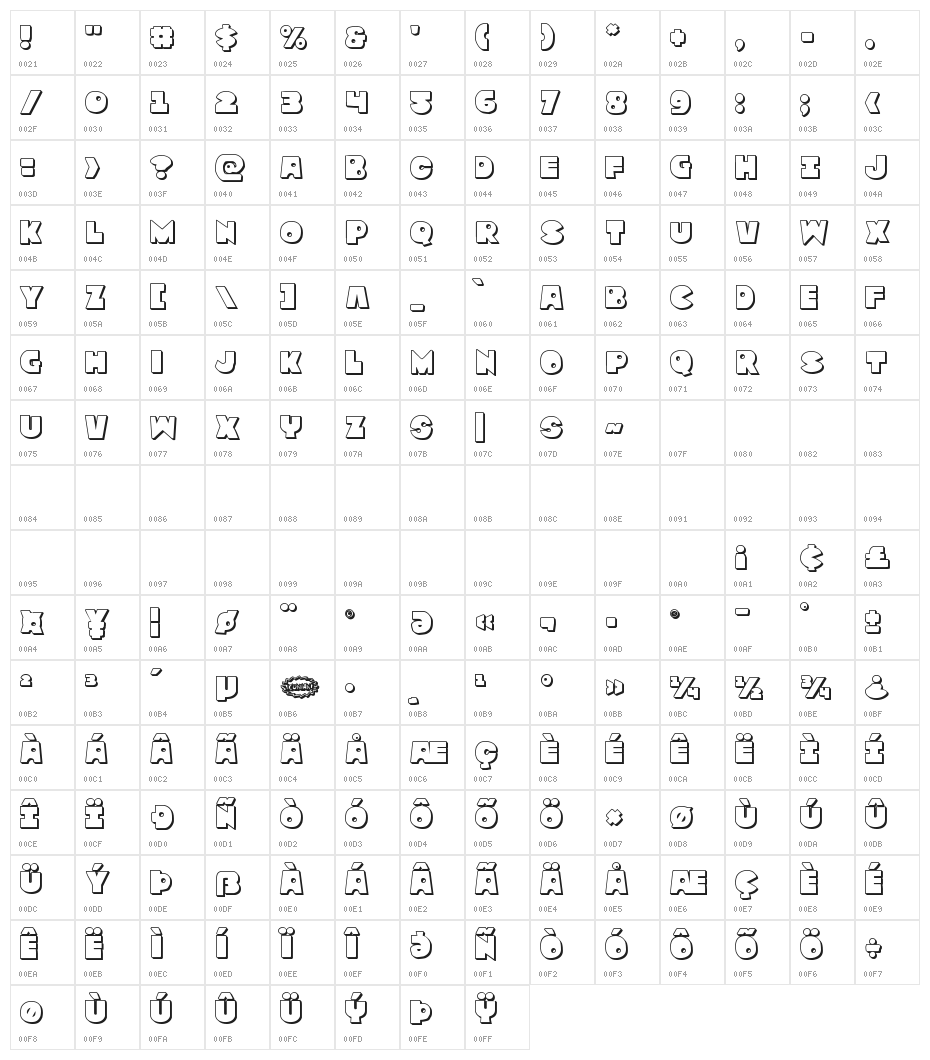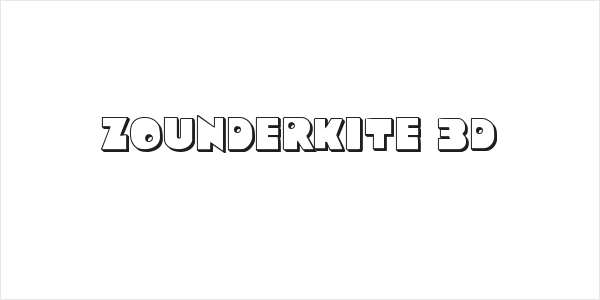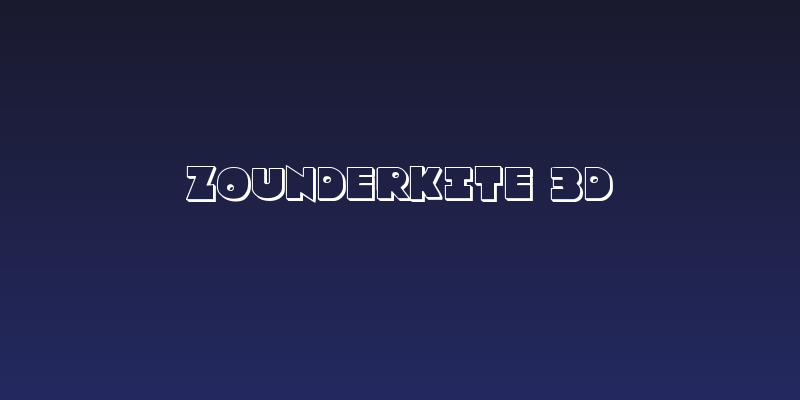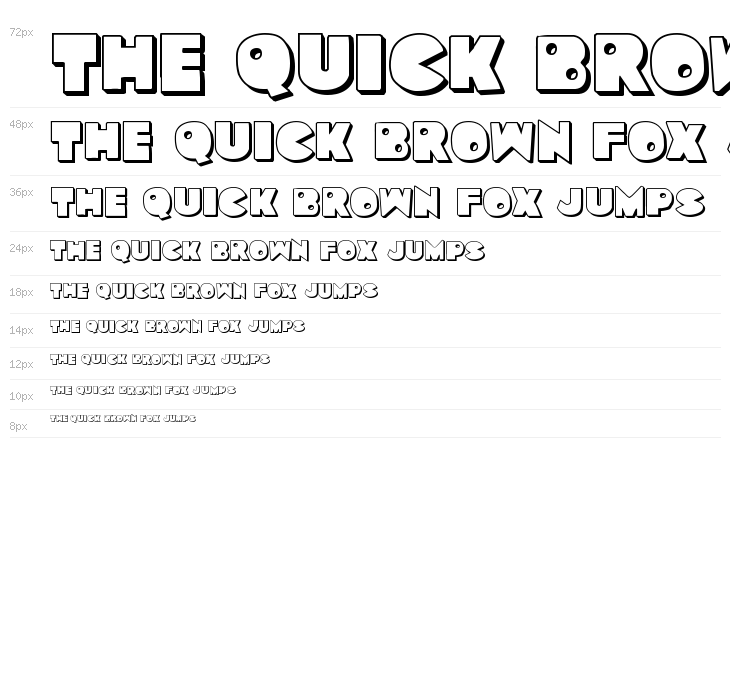
Zounderkite 3D Font
Zounderkite 3D Description
This font features a bold, playful 3D style with thick outlines and a cartoonish appearance. The characters are blocky and rounded, giving them a friendly and approachable look. The 3D effect is achieved through a shadow-like outline that adds depth and dimension. This font is highly legible and stands out due to its unique design, making it suitable for attention-grabbing headlines or playful branding. The numbers and special characters maintain the same bold and rounded style, ensuring consistency across all elements.
| Overall Style | Playful, Cartoonish, 3D |
| Proposed Projects | Ideal for children's books, playful branding, comic strips, and eye-catching headlines. |